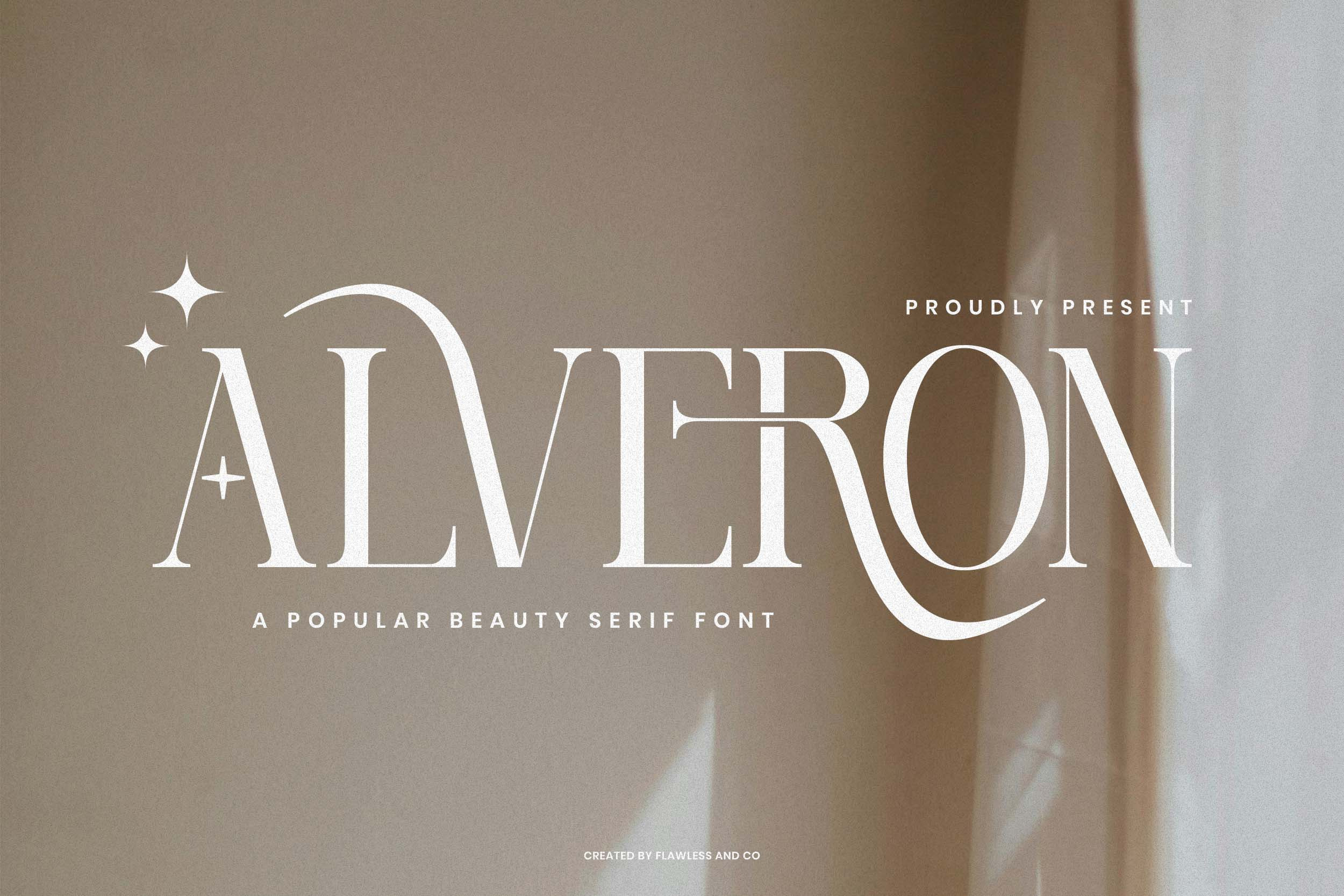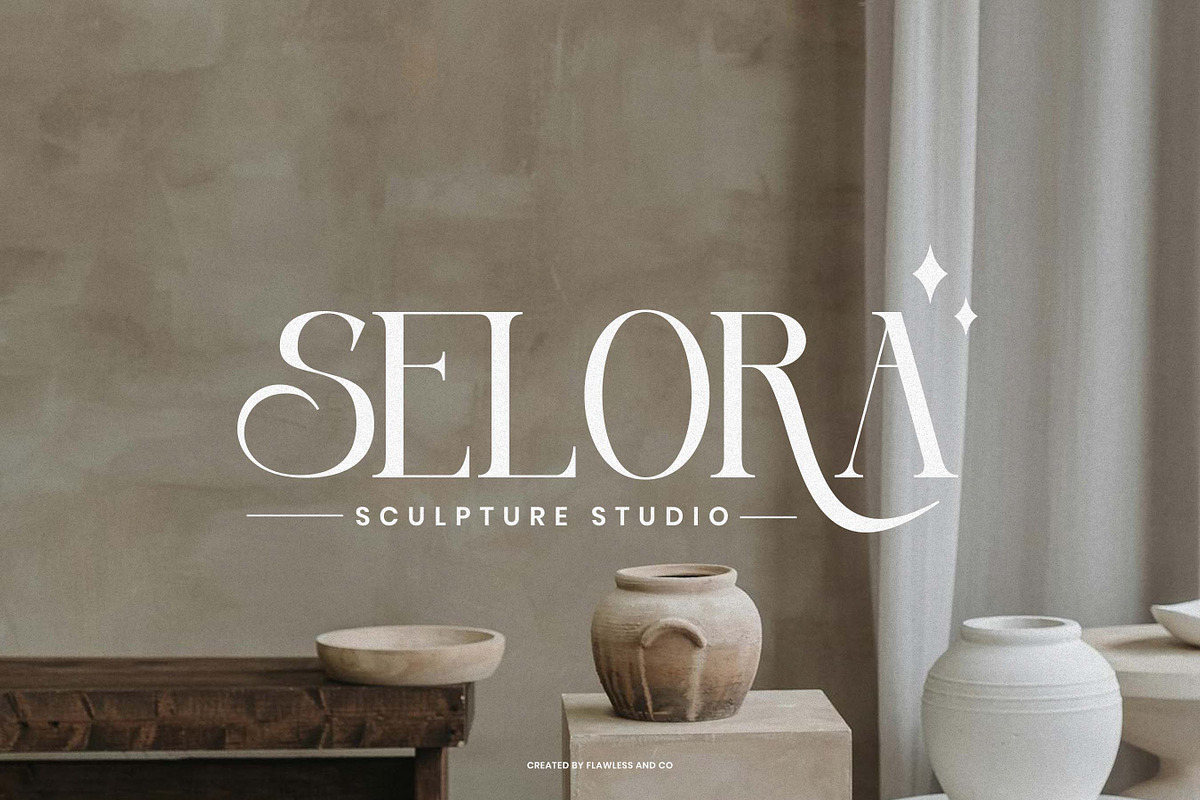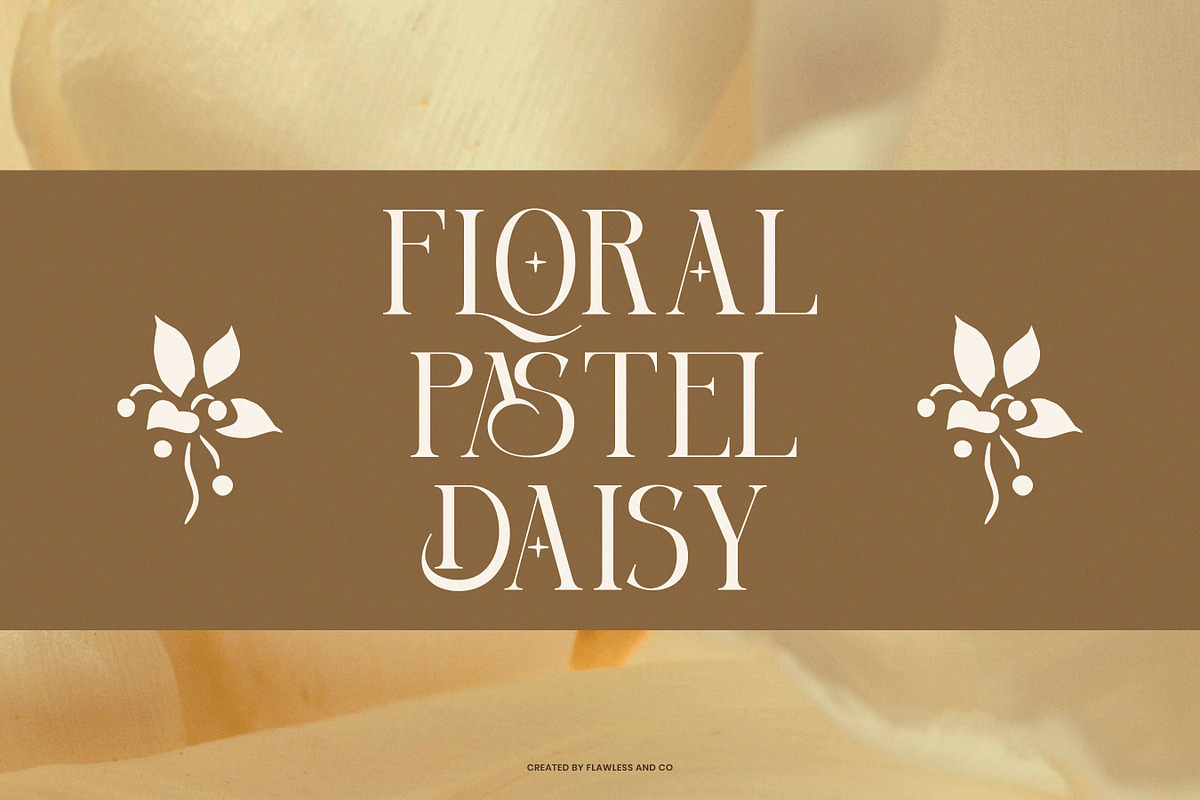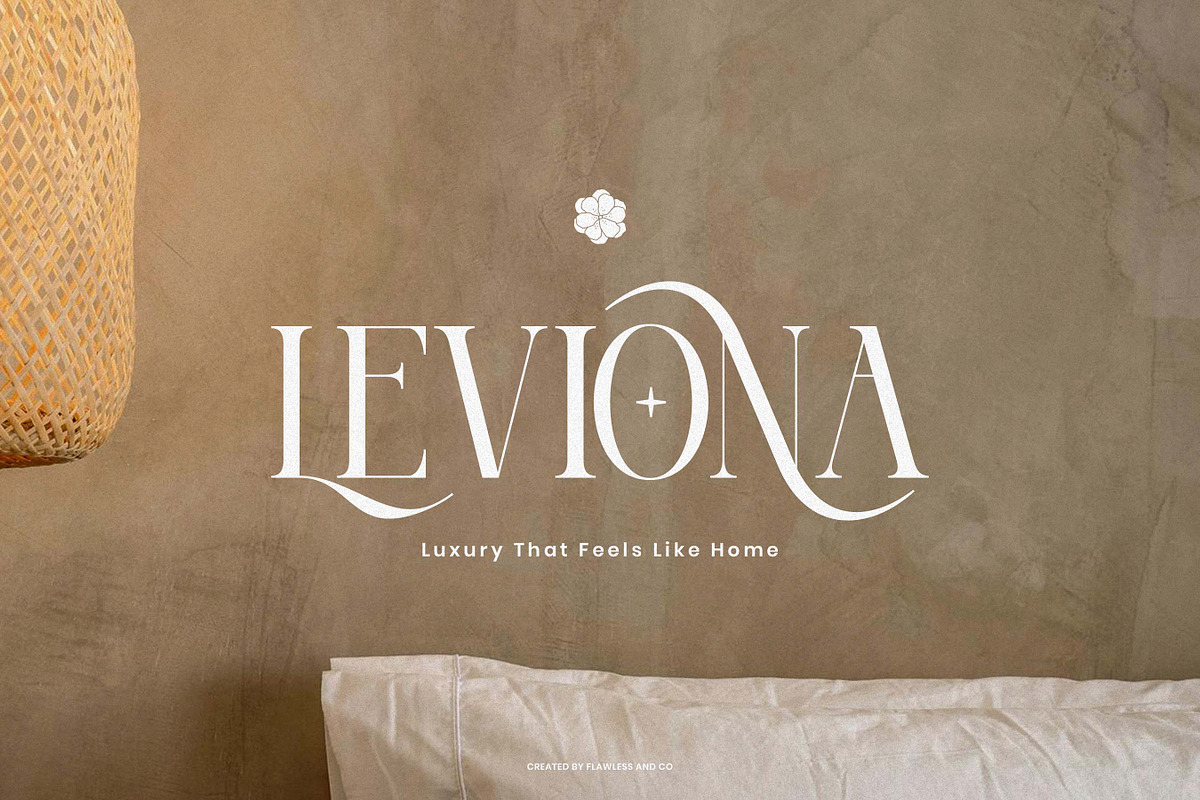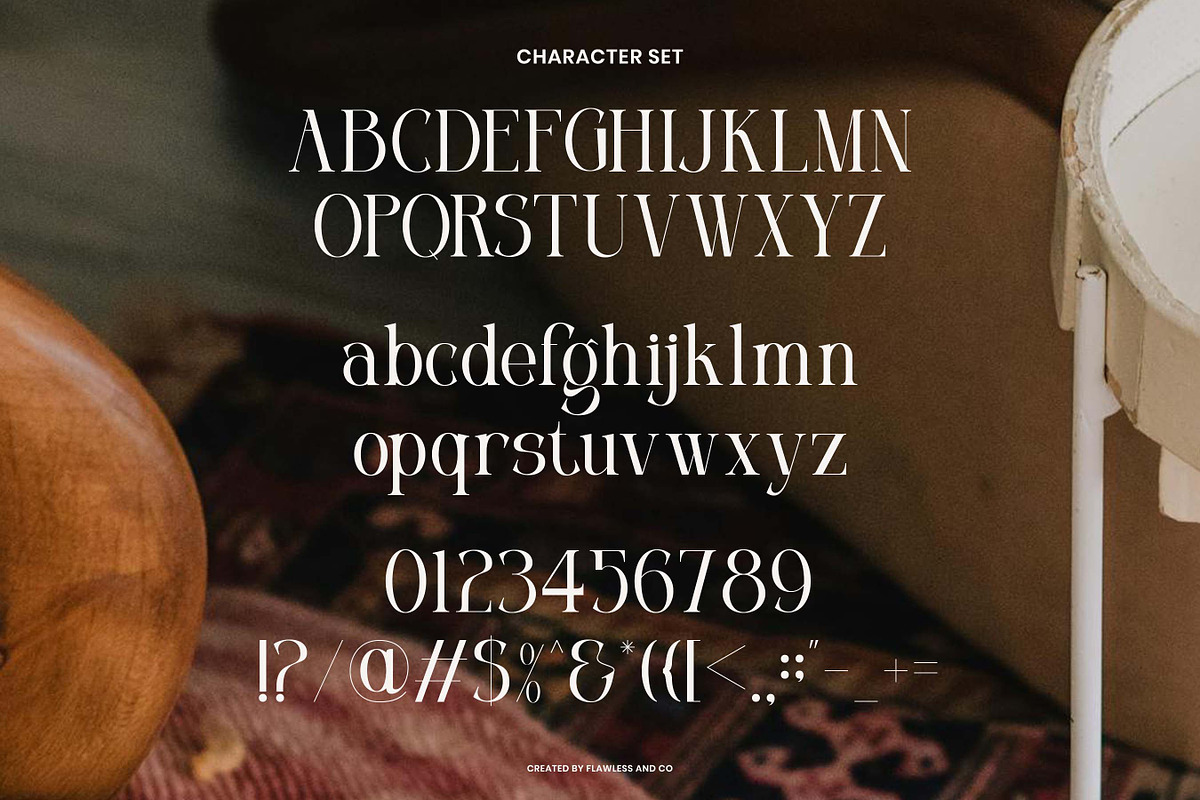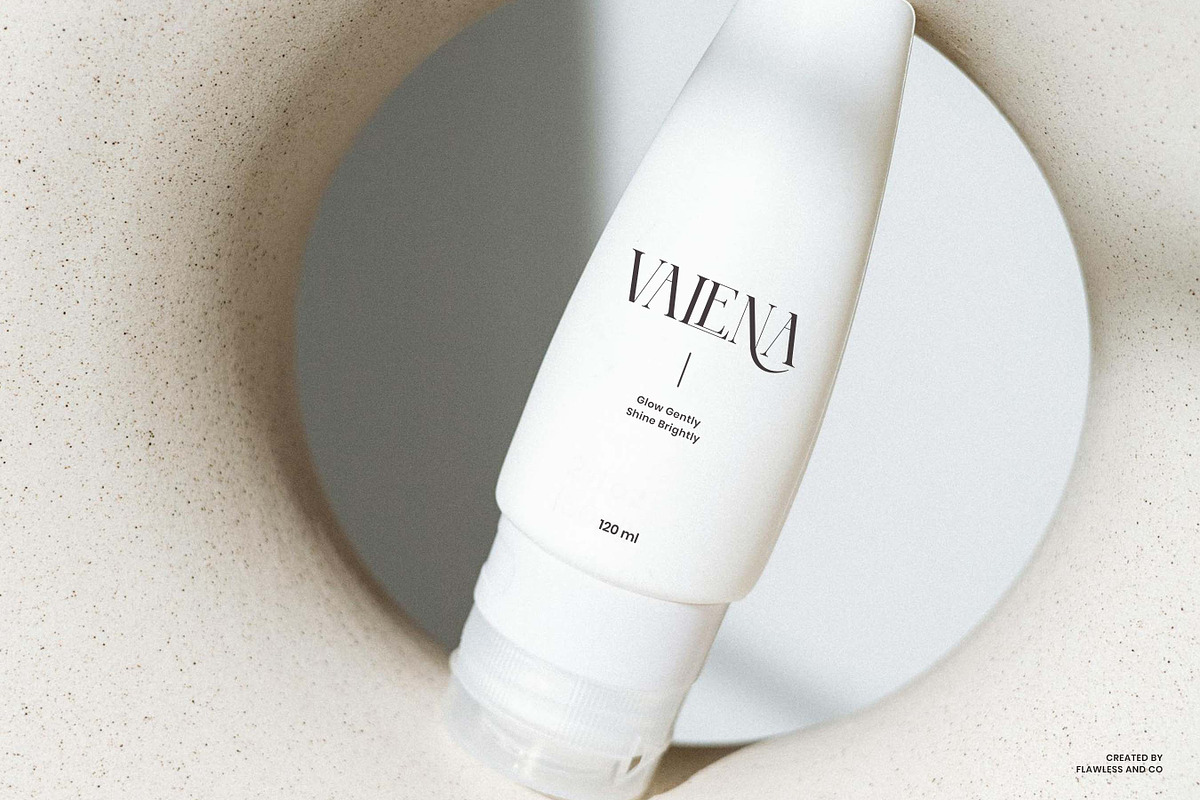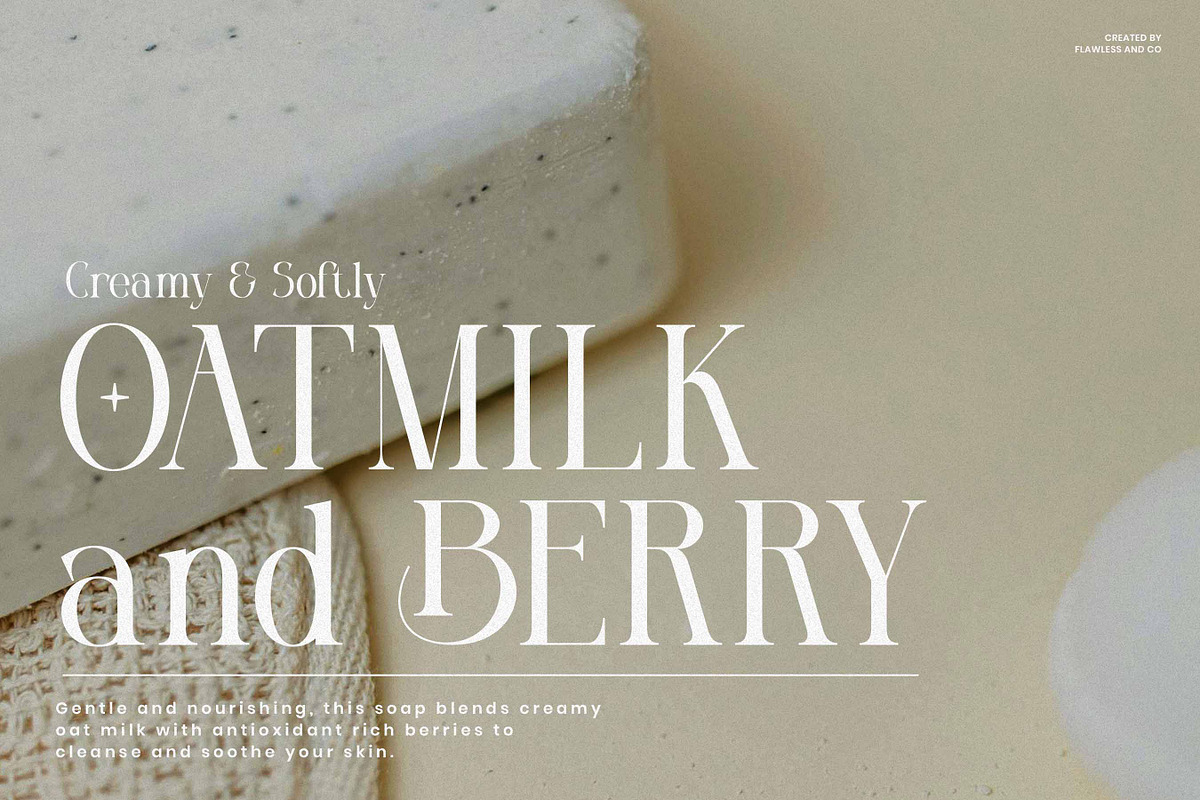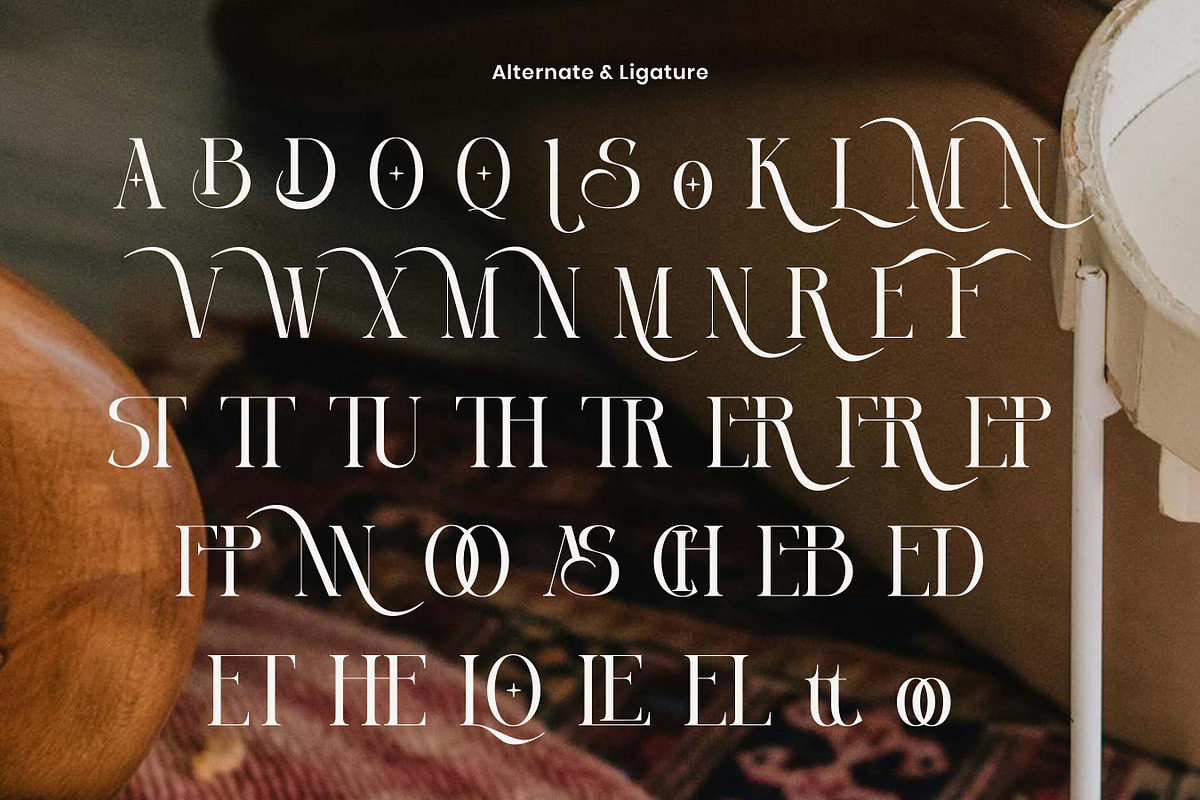
Alveron - Beauty Serif Font
Alveron — Modern Classy Serif Alveron a modern serif typeface designed to bring elegance, sophistication, and confidence to your designs. With its refined contrast, sharp serifs, and graceful curves, this font strikes the perfect balance between classic beauty and contemporary style. Crafted with versatility in mind, this font is perfect for branding, editorial design, packaging, logo design, and wedding invitations. Its stylish alternates and elegant ligatures allow for endless creative combinations that will elevate any visual presentation. Features:
- Elegant alternates & ligatures
- Full punctuation & numerals
- Fashion & beauty branding
- Magazine & editorial layouts
- Luxury product packaging
- Invitations & stationery
Who Should Use Alveron?
Alveron is perfect for creatives, designers, and brands who want to make a bold yet refined impression. Whether you're working on luxury branding or editorial layouts, Alveron delivers timeless sophistication with a modern edge. Ideal for:
- Creative Agencies – looking to add elegance and authority to brand identity projects.
- Fashion Brands – who need stylish, high-contrast typography for lookbooks, labels, and ads.
- Editorial Designers – creating upscale magazine spreads or polished blog visuals.
- Luxury Product Designers – from cosmetics to high-end packaging.
- Wedding & Event Designers – crafting invitations and stationery with charm and grace.
- Logo Designers – in need of a serif with character for boutique or premium logos.
- Social Media Designers – aiming for classy, scroll-stopping posts on Instagram, Pinterest, and beyond.
If you're building a brand that needs to feel elegant, confident, and contemporary, Alveron is the font that helps you say it—beautifully.
A Must-Have Font for Wedding, Brand, and Logo Creators and Designers
Alveron is more than just a font — it’s a celebration of beauty and sophistication. Designed for wedding creatives, brand designers, and logo specialists, this popular beauty serif brings a sense of modern romance and refined elegance to every project. Whether you're designing wedding invitations, crafting a high-end brand identity, or styling graceful logos, Alveron adds timeless charm and polished detail to your visual storytelling.
Why Choose Alveron for Wedding, Brand, and Logo Projects?
Alveron stands out with its graceful curves, balanced proportions, and refined serif details—making it the perfect choice for projects that demand elegance and sophistication. Its versatility allows it to seamlessly adapt to romantic wedding designs, luxurious brand identities, and modern logos. With its high-end look and timeless appeal, Alveron elevates any design with a touch of beauty, class, and professional polish. Whether you're aiming for softness or strength, Alveron delivers both with style.
Suitable for:
- Wedding Invitations & Stationery
- Bridal & Beauty Branding
- Elegant Logo Design
- Luxury Packaging
- Social Media Graphics
- Fashion Editorial Layouts
- High-End Product Labels
- Romantic Quote Typography